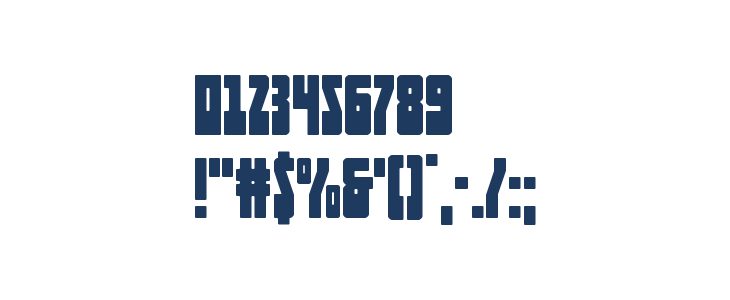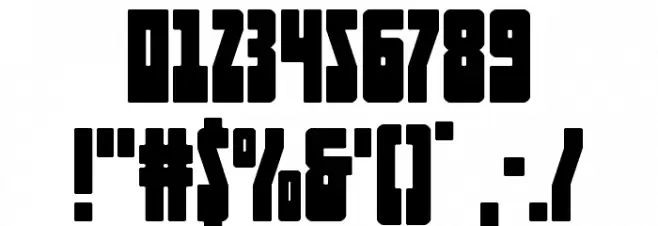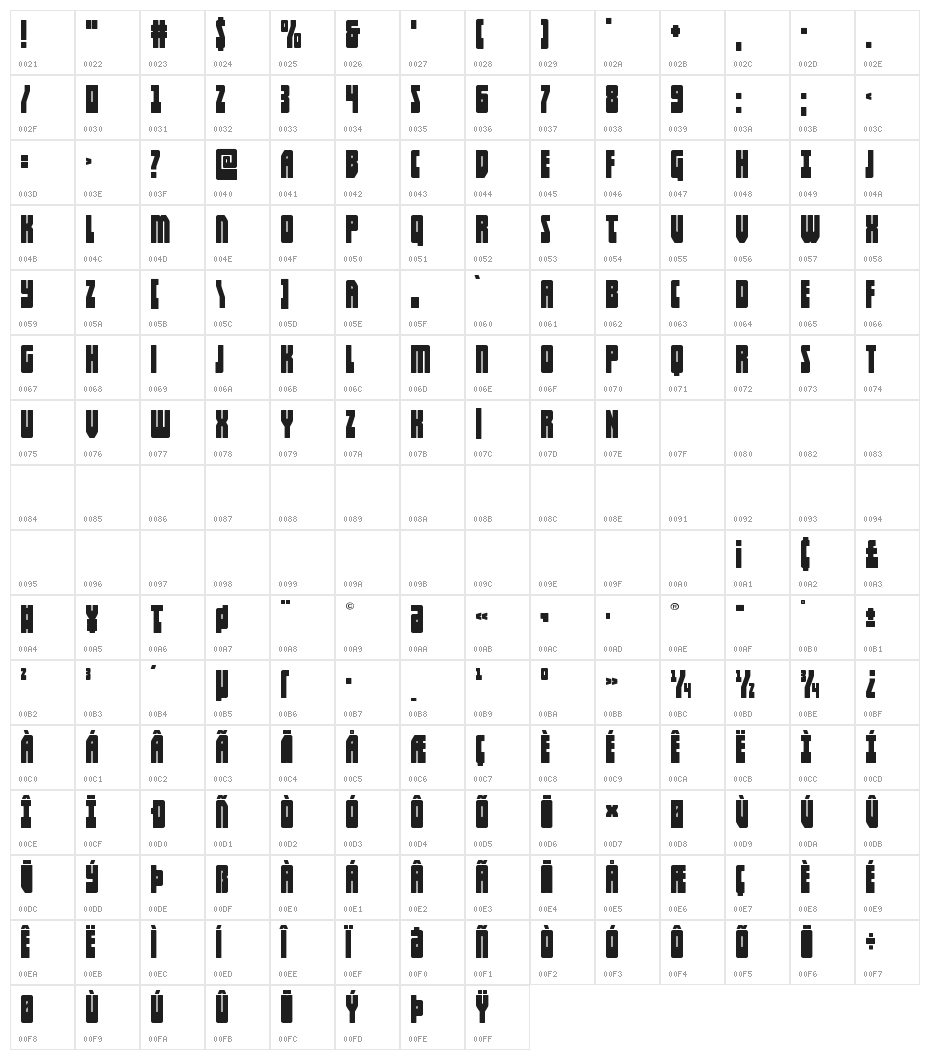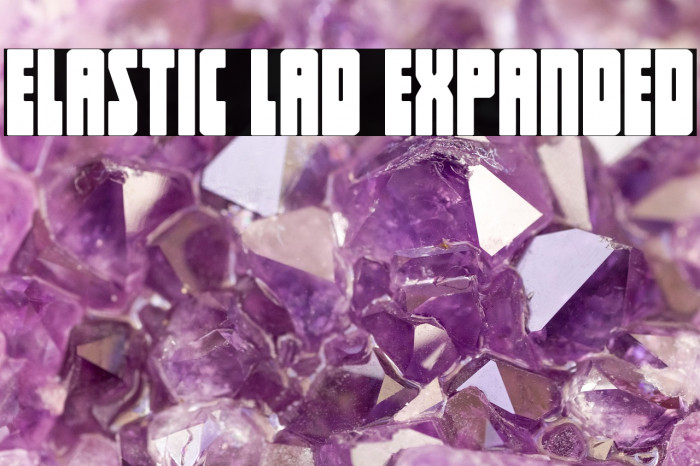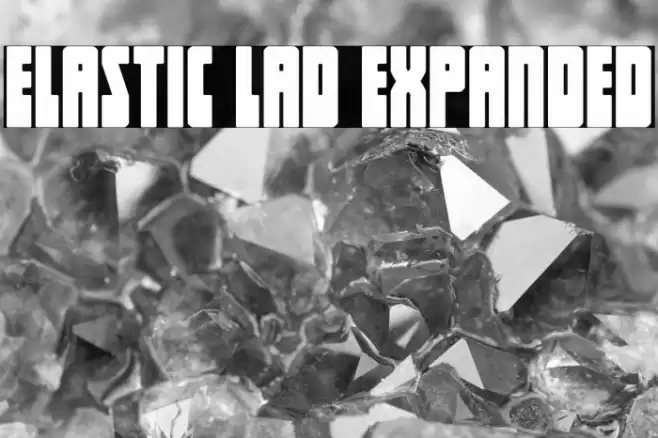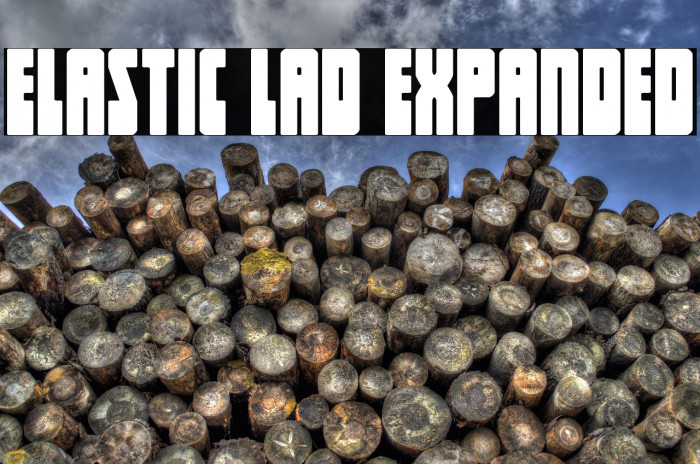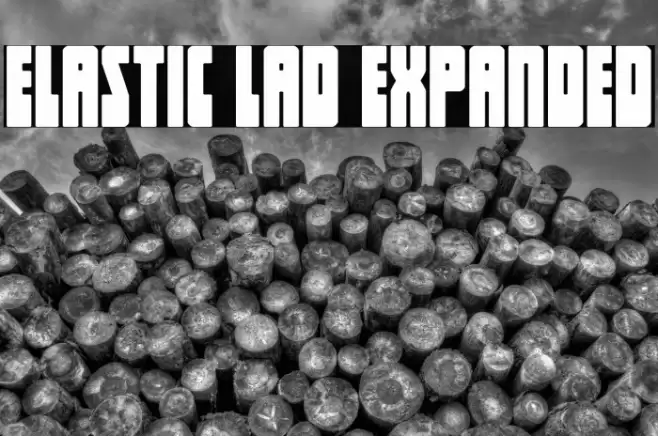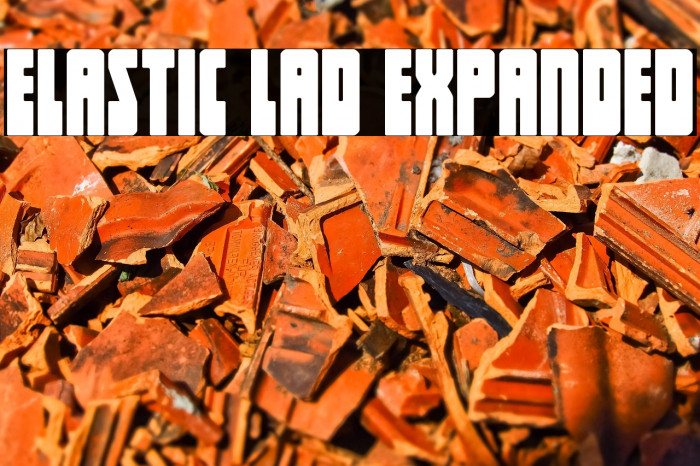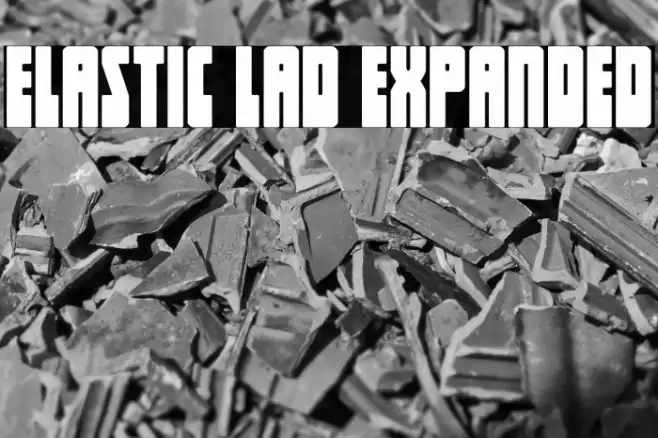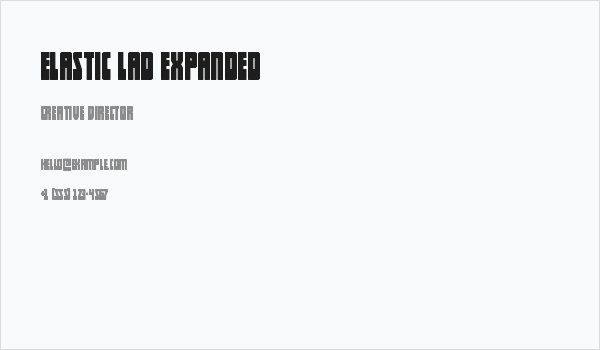
Elastic Lad Expanded Font
Elastic Lad Expanded Description
This font features a bold and striking design with a distinctly geometric and blocky appearance. The characters are wide and have a strong presence, making them ideal for attention-grabbing headlines or titles. The uppercase letters are particularly prominent, with sharp angles and a uniform thickness that adds to the font's boldness. The numbers and special characters maintain the same bold style, ensuring consistency across all elements. The overall look is modern and assertive, making it suitable for projects that require a strong visual impact.
Proposed ProjectsIdeal for posters, headlines, logos, and branding materials that require a bold and modern look.